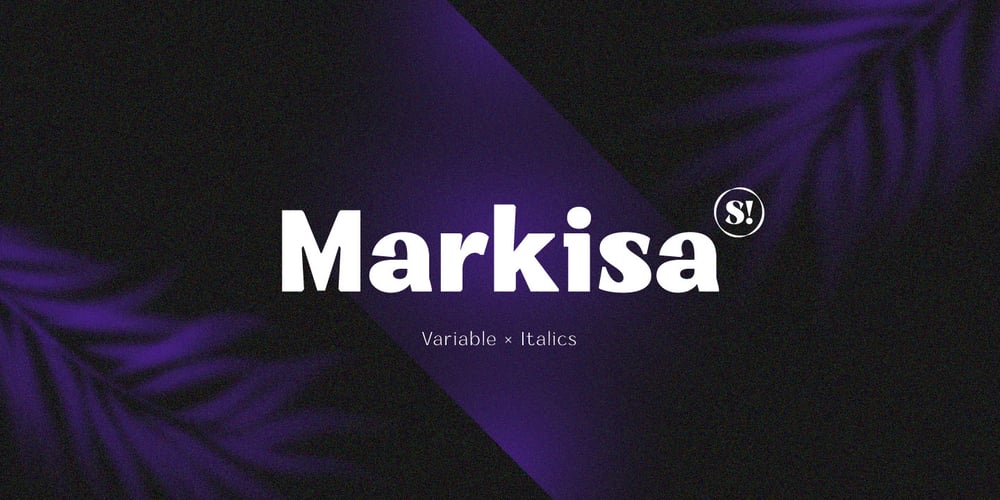
Markisa Font Family was designed by Aulia Rahman and published by Showup! Typefoundry. Markisa contains 19 styles and family package options. Markisa is a simple, cool, and dynamic Humanist-flavored Sans Serif type family. It consists of eighteen weights from Thin to Black in both Upright and Italic styles. The resilient yet robust typeface. A san-serif with a humanist touch, a steady combination of seriousness and merriment. Works well as texture in small sizes, while at the same time claiming its space on the display. With its distinctive characteristic, can catch anyone’s attention wherever and whenever.